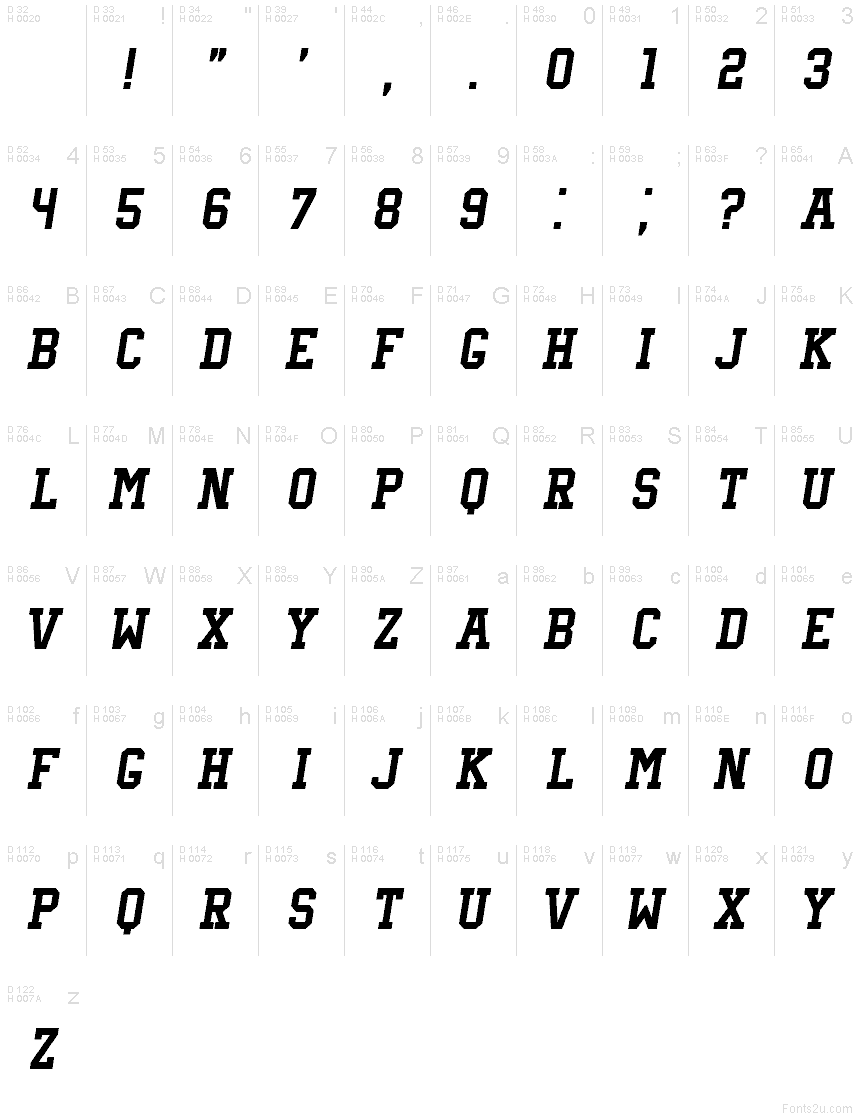
Catch Italic font by Vladimir Nikolic is a free old school display typeface with the swagger of vintage sports jerseys and poster headlines. Thick, blocky letterforms lean forward with a sharp italic slant, giving every word a sense of motion and impact. The bold, squared curves and tight spacing feel like they’ve been stamped on a stadium banner or screen-printed on a classic team tee.
Using Catch Italic, you can punch up sports logos, varsity posters, game-day flyers, bold merch graphics, event titles, and retro branding. This free font shines at large sizes where its chunky shapes and dynamic tilt can really shout. Pair Catch Italic with a clean geometric sans for supporting text and keep the body copy smaller and neutral so the Catch family can command the spotlight.